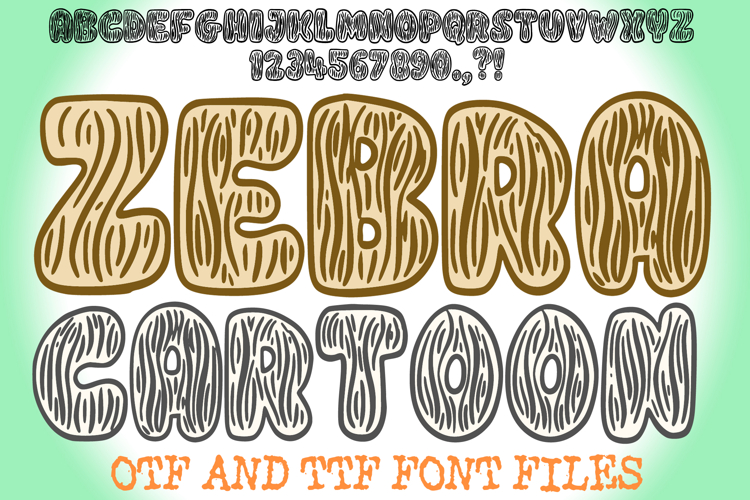
Zebra Cartoon Animal Print Handwriting Alphabet Lettering
Unleash your wild side with Zebra Cartoon Font! This playfully exotic typeface is bursting with animated charm, featuring plump, bubbly letterforms boldly filled with a distinctive zebra stripe pattern. It's more than just a font; it's an instant safari adventure, designed to bring a touch of playful wilderness, unique texture, and vibrant energy to any creative project!
Each character in Zebra Cartoon Font is crafted with a sweet, rounded outline, and its interior gallops with a captivating pattern of irregular, hand-drawn zebra stripes. This unique and eye-catching visual effect makes it an ideal choice for children's books, zoo branding, safari-themed parties, playful apparel designs, wildlife conservation efforts, comic book titles, or any design calling for a unique blend of animal charm and lively animation.
Whether you're creating lively event promotions, designing adventurous product packaging, crafting exciting social media posts for nature-themed content, or adding a wild touch to digital art, this font will bring an undeniable sense of fun, originality, and a vibrant, energetic aesthetic to your work. Its clear yet bubbly forms ensure readability while delivering a memorable visual experience.
If you're looking to infuse your designs with a sense of playful adventure, charming texture, and an undeniable touch of the wild, Zebra Cartoon Font is your ultimate tool. Stripe up your creativity!